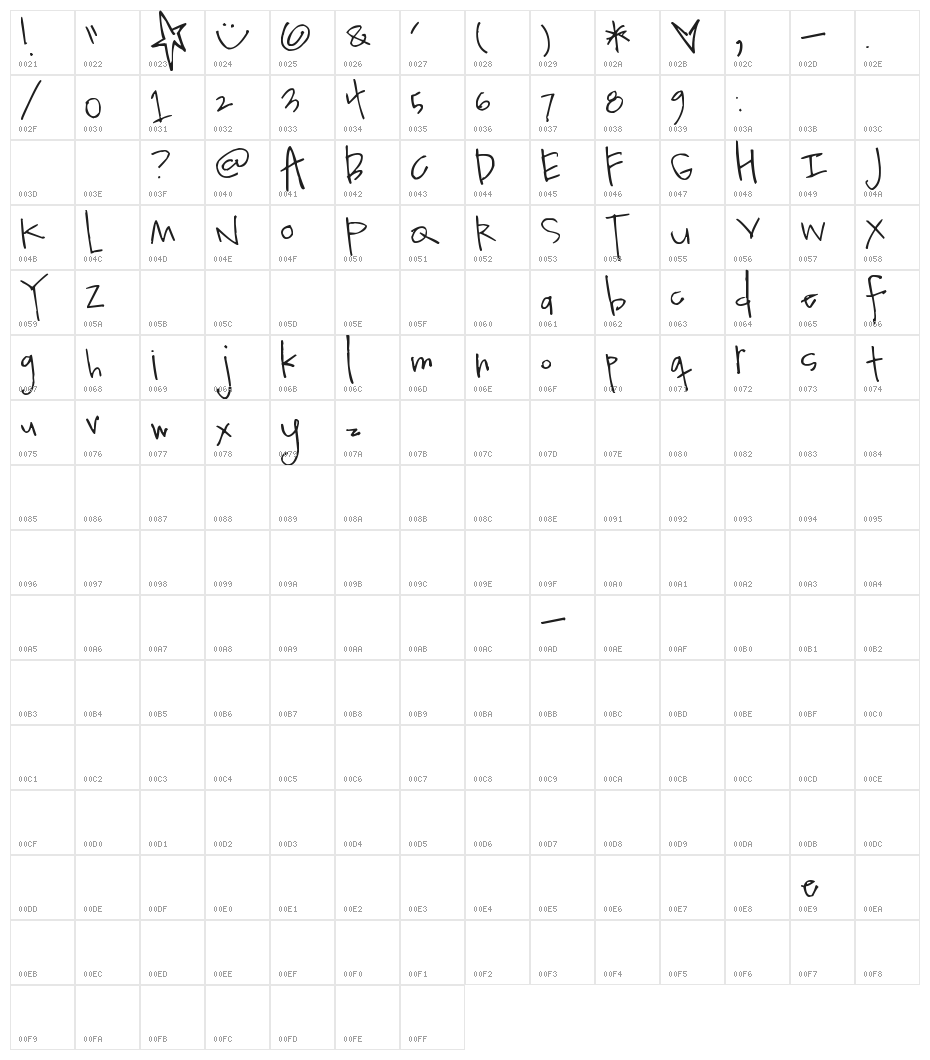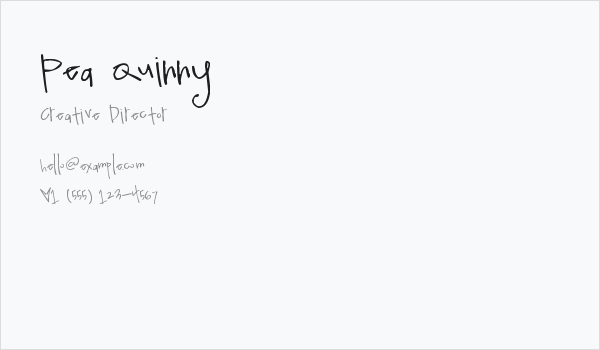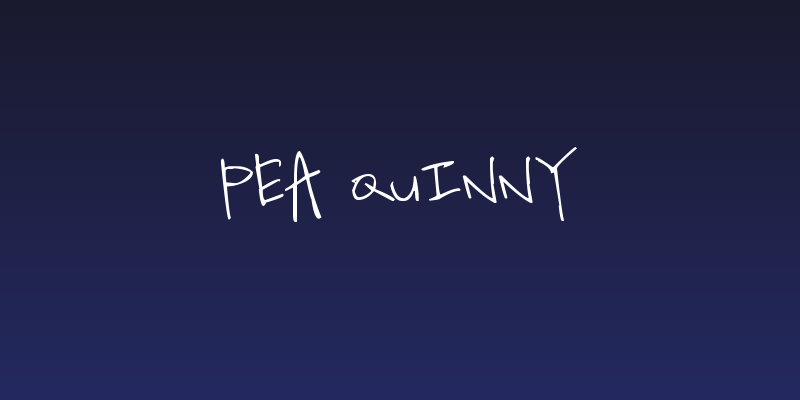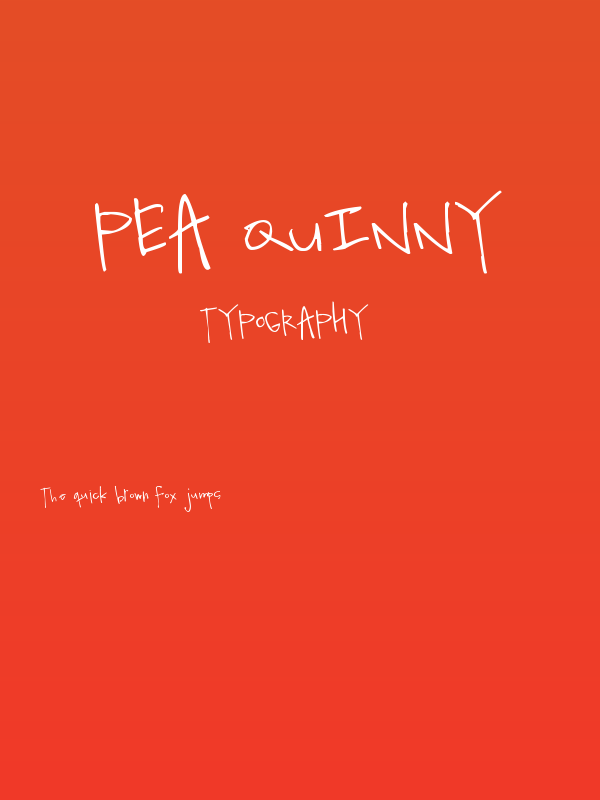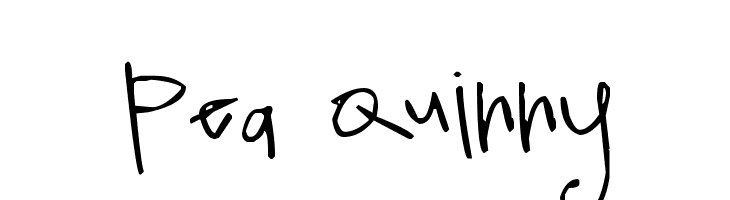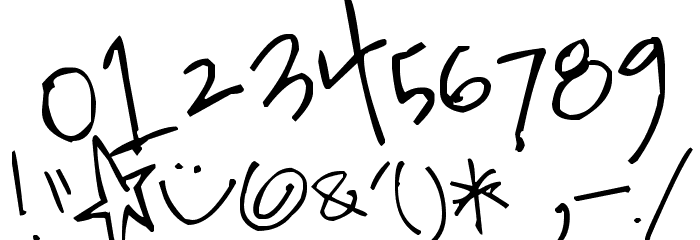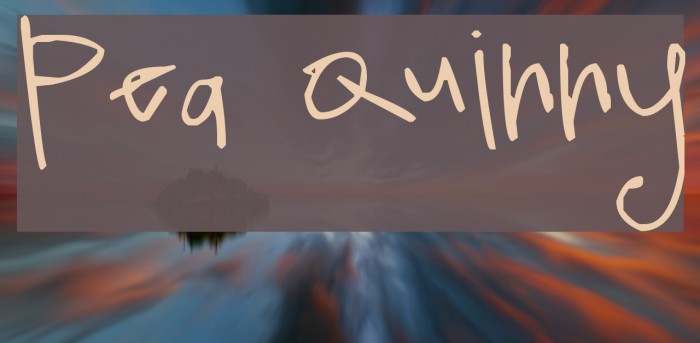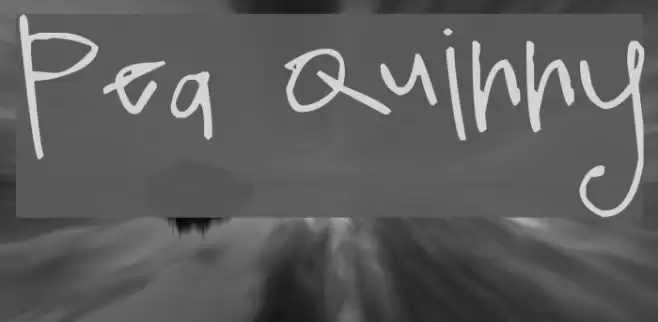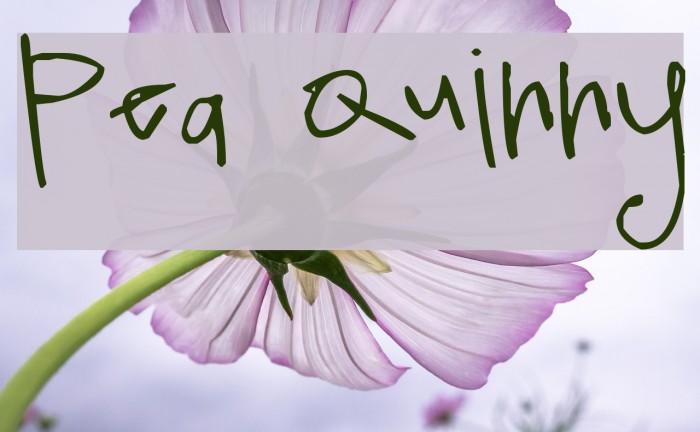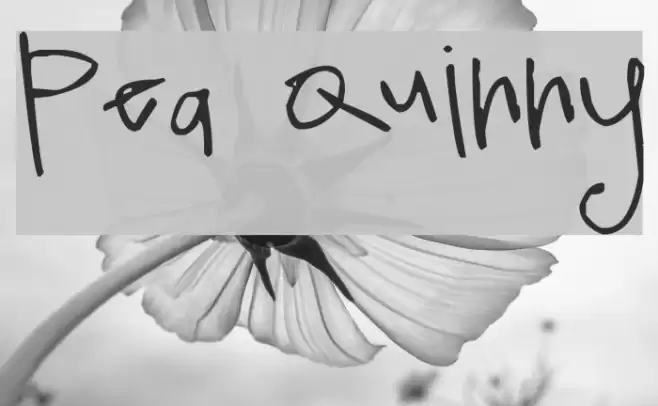
Pea Quinny Font
Pea Quinny Description
This font exudes a playful and casual vibe, characterized by its handwritten style that mimics a natural, free-flowing script. The letters are unevenly spaced and vary in size, adding to the informal and spontaneous feel. The strokes are bold and slightly irregular, giving each character a unique personality. This font is perfect for projects that require a personal touch, such as greeting cards, invitations, or creative branding. Its whimsical nature makes it ideal for conveying warmth and approachability.
| Overall Style | Casual, Playful |
| Use Case | Headlines, Informal text, Creative projects |
| Proposed Projects | Ideal for greeting cards, invitations, personal branding, and creative projects. |